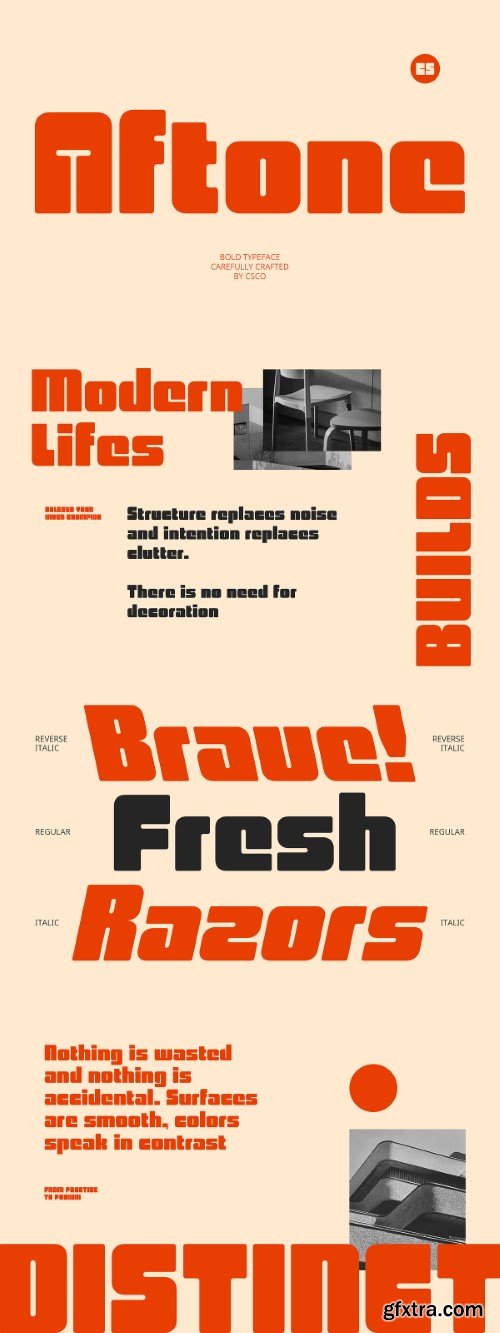
Creativemarket - CS Aftone – Bold Font
Strong and Stylish Sans Serif Form CS Aftone is a bold sans serif font crafted with a clean, solid structure and modern design language. Its letterforms are built for impact—delivering clarity, strength, and balance in every character. The bold weight creates a striking visual hierarchy, making it perfect for attention-grabbing headlines and high-impact layouts. Minimalist Aesthetic with a Confident Edge Blending contemporary minimalism with bold proportions, CS Aftone presents a professional yet approachable presence. The font avoids unnecessary detail, focusing on simplicity and form, resulting in a design that feels sleek, fresh, and confidently modern—ideal for tech, corporate, or editorial use.